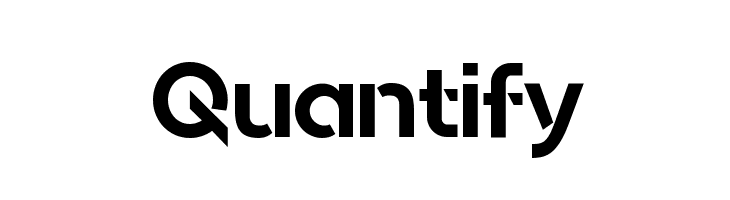
( Marco Aguayo )
A playful, rounded font with a casual and friendly style.
( Martin Sørensen )
A playful, bold handwritten font with expressive strokes and a casual style.
( Murat Yegul - www.formatltd.com )
A tall, antique serif font with a hand-drawn, vintage style.
( Sentype - Saidi Senhikari - www.behance.net/Senhikari )
A bold, geometric font with sharp angles and clean lines, perfect for modern designs.
( Tack-O-Rama - Josella Colquhoun - tackorama.net/ )
Retro-themed dingbat font with mid-century cartoon illustrations.
( Thirtypath - www.thirtypath.com )
A fluid and elegant script font with smooth, connected strokes.
( Twysel )
A pixelated, geometric font inspired by retro digital displays.
( Woodcutter - woodcutter Manero - www.woodcutter.es )
A bold decorative icon set with hippie and peace motifs.
A bold, playful font with a retro, psychedelic style.
( memesbruh03 - Aaron D. Chand )
A bold, pixelated font with a retro, digital aesthetic.